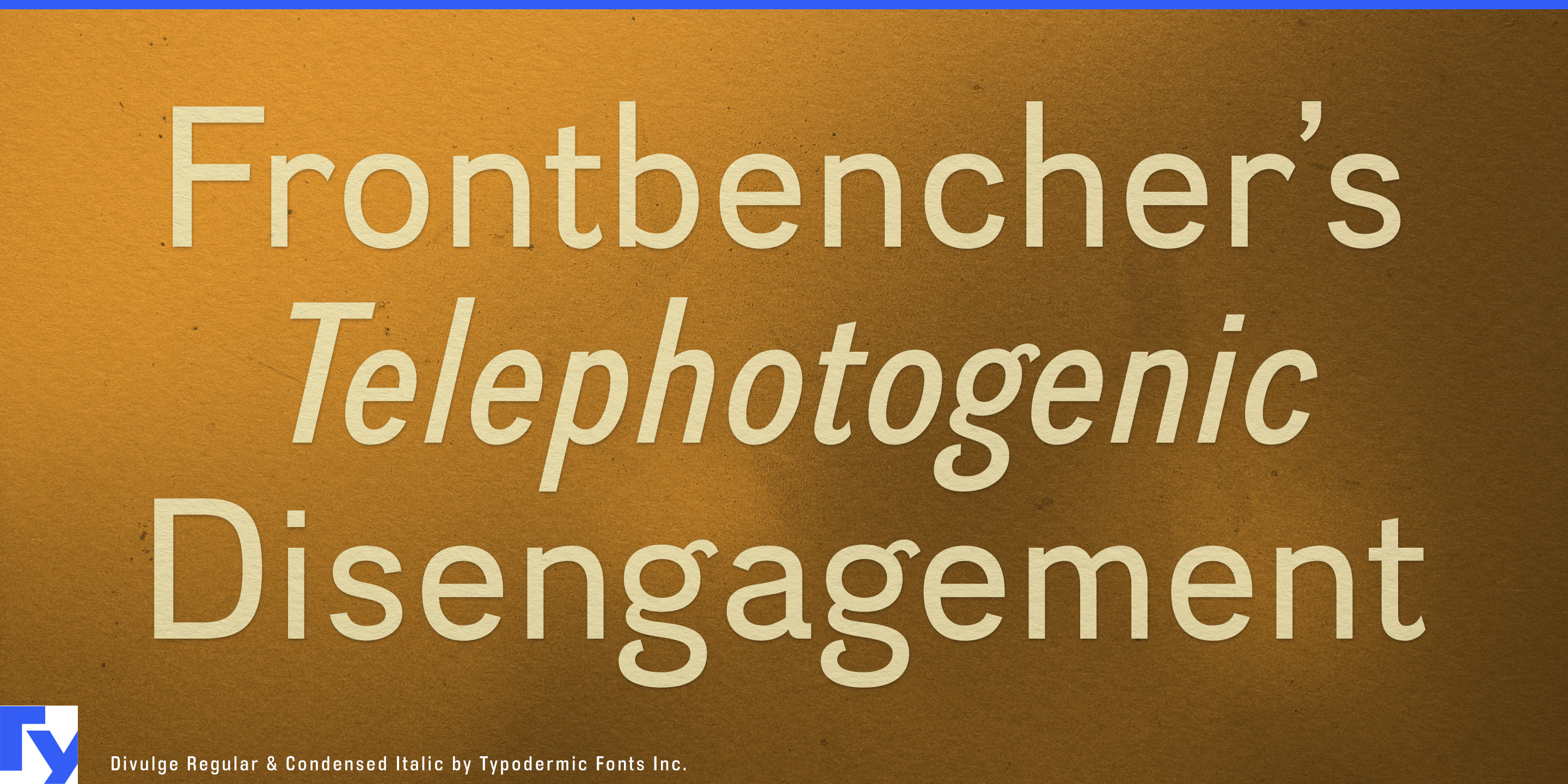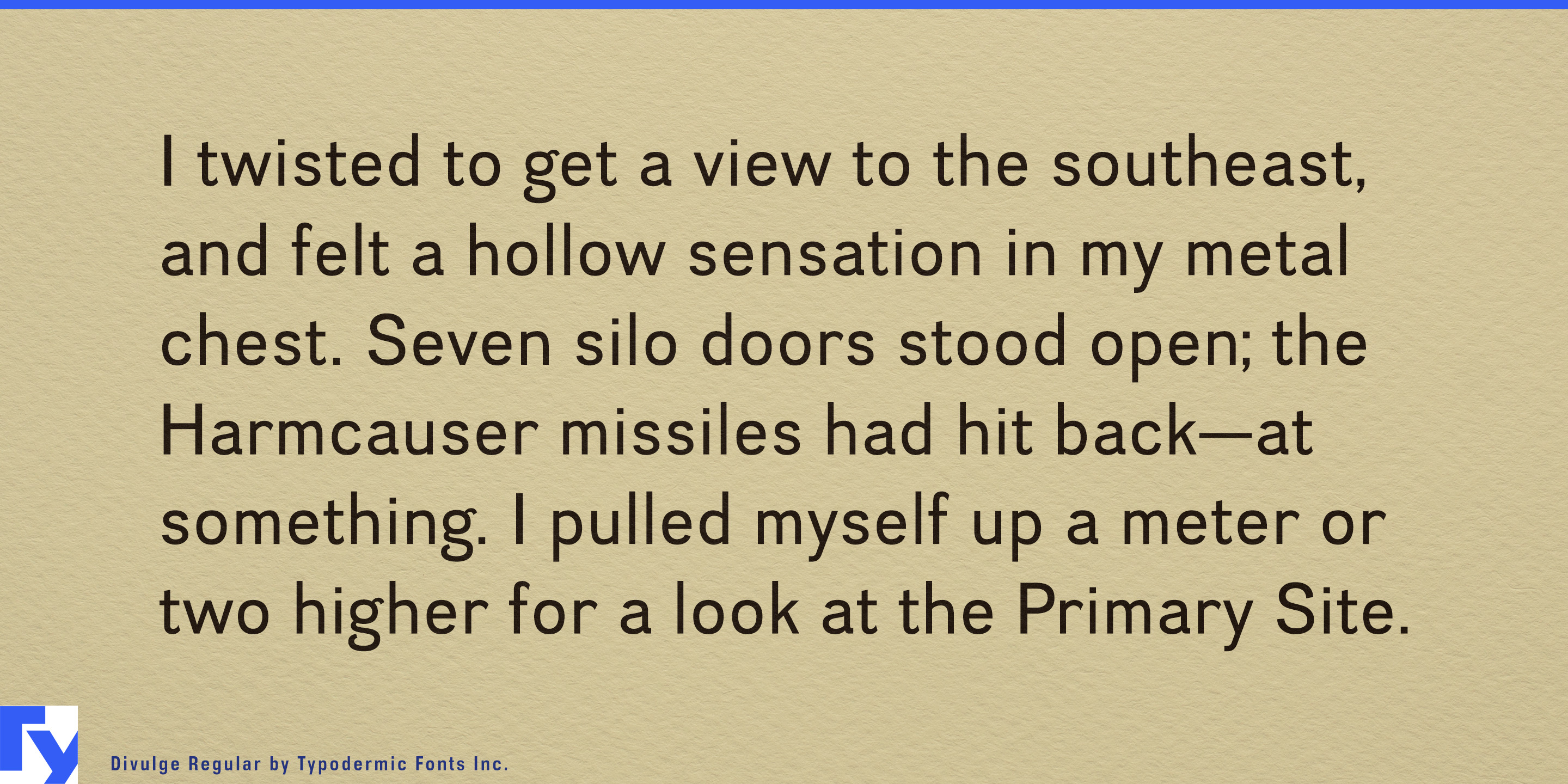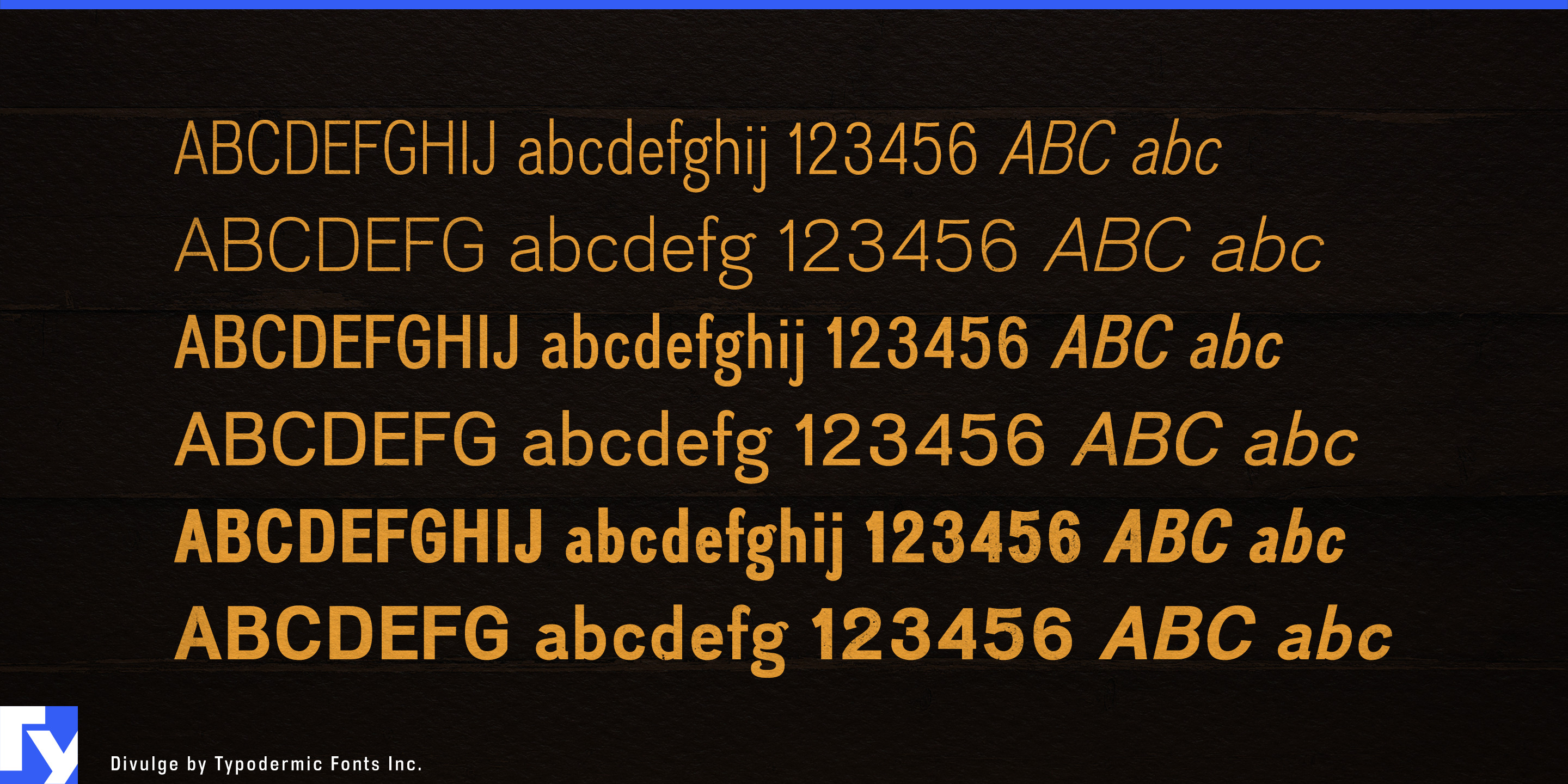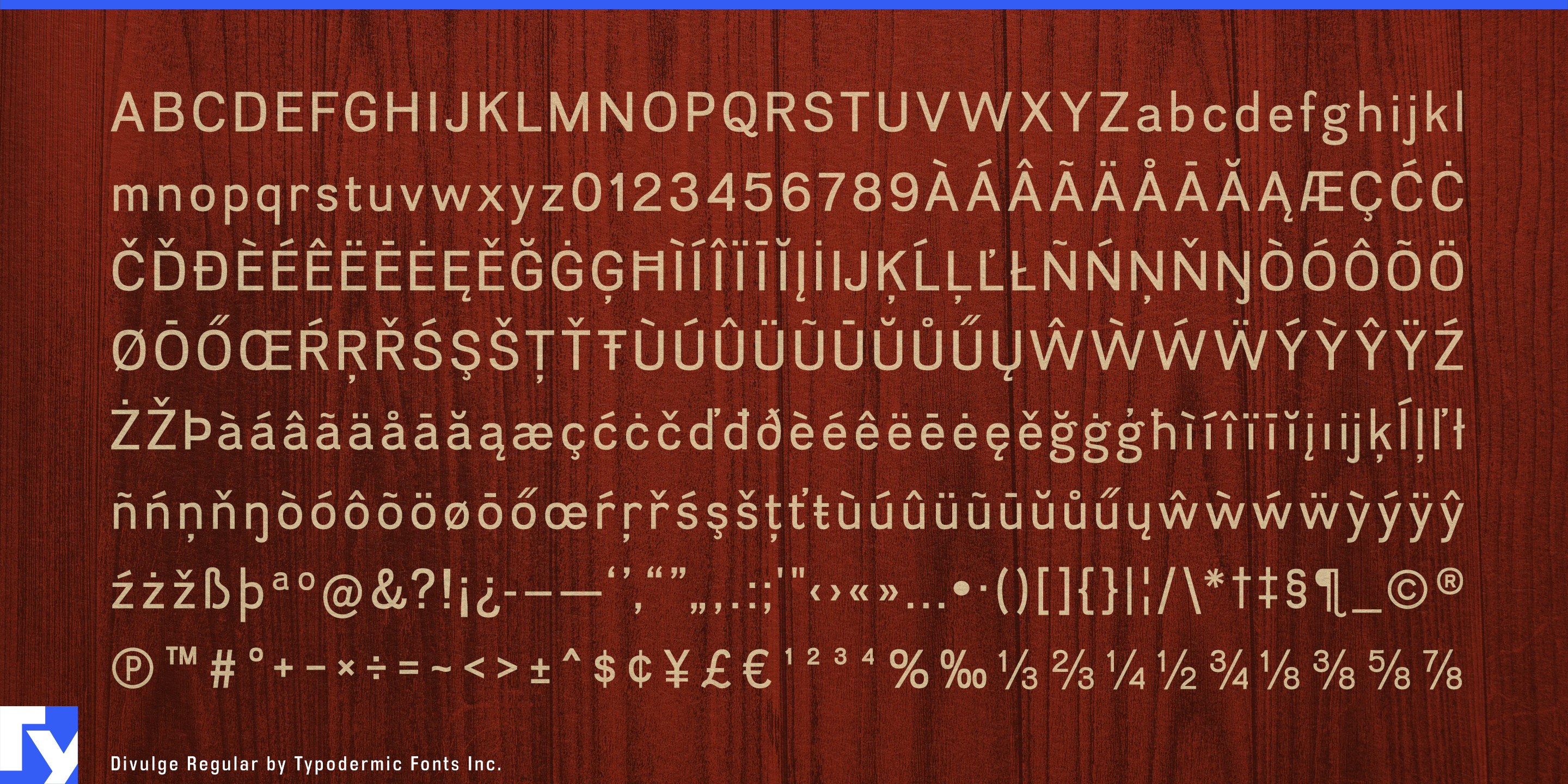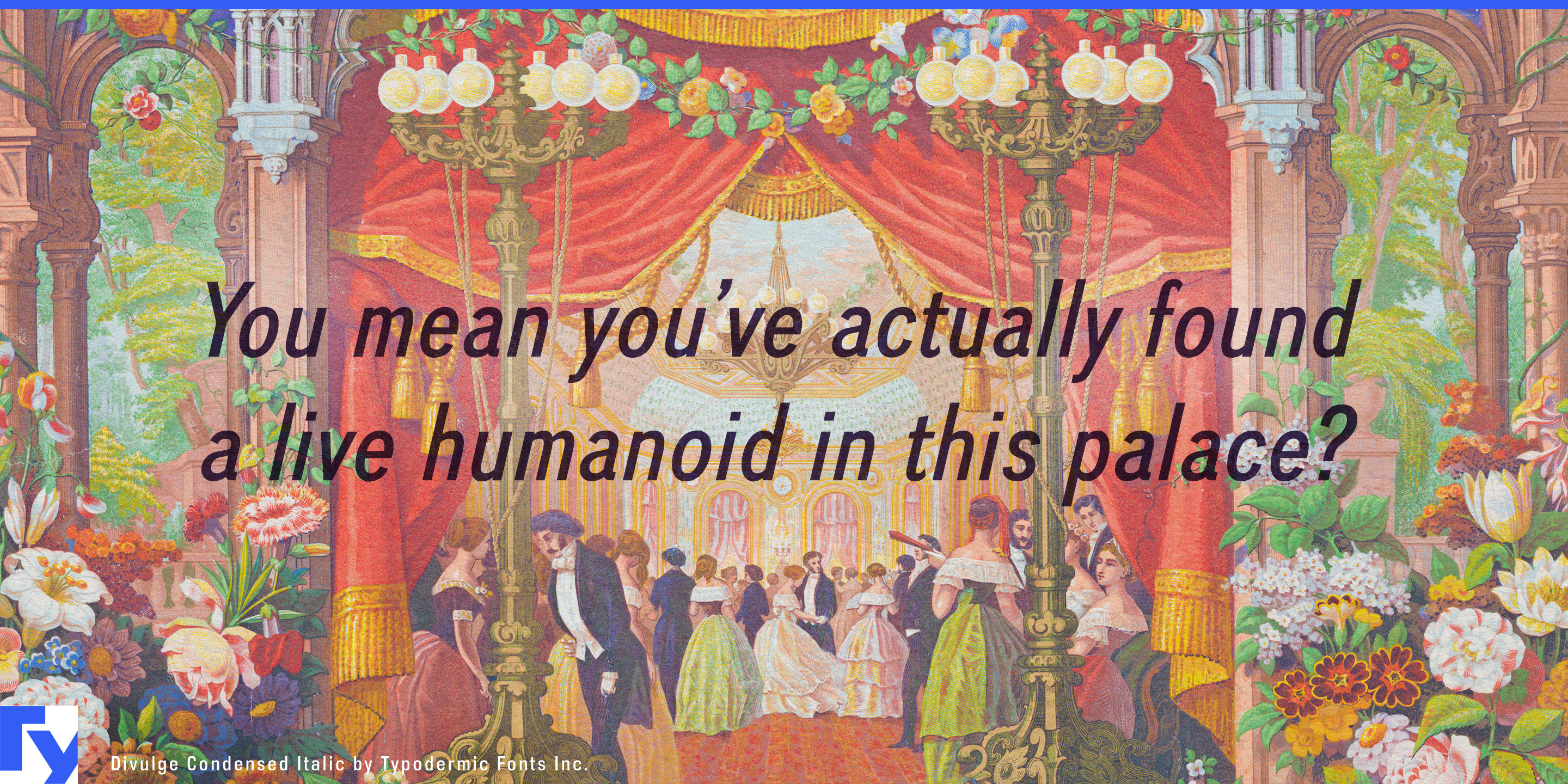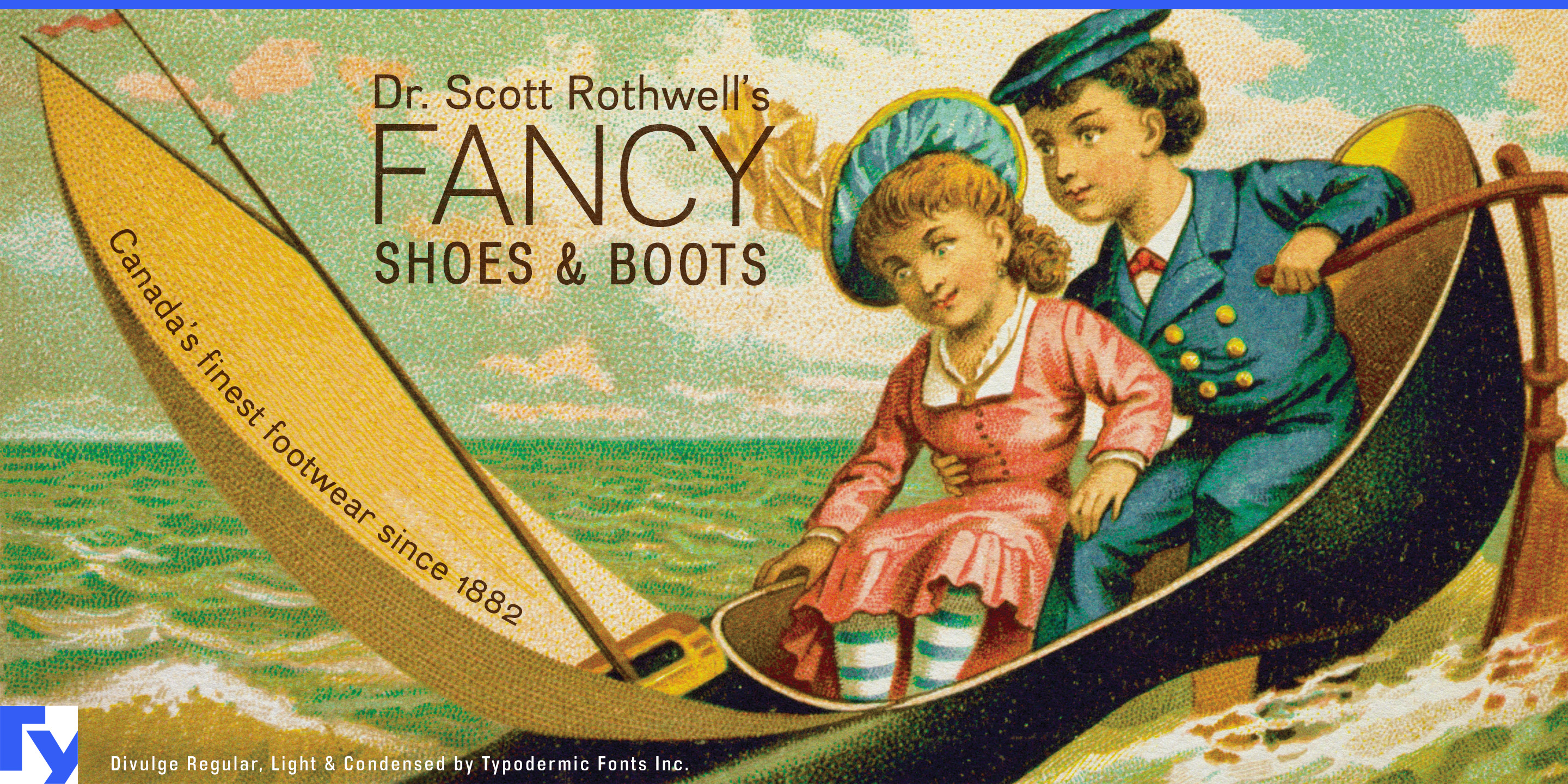
Divulge
Divulge takes its cues from the period before grotesque sans-serifs settled into familiar twentieth-century conventions. Early examples could be oddly proportioned, soft in unexpected places, and less systematic than the later models that came to define the genre. Divulge borrows some of that uncertainty without reproducing a particular historical typeface; it is a contemporary design that happens to be very comfortable around old-fashioned typography.
That makes it especially useful when an elaborate display face is already doing the attention-grabbing. A whiskey label, tea tin, bottle of bitters, aromatherapy oil, botanical extract, preserve jar, or confectionery package may have room for a decorative Victorian, Tuscan, engraved, or ornamental headline, but considerably less room for everything underneath it. Divulge provides a compact sans-serif layer for origins, dates, varieties, ingredients, batch information, tasting notes, and other details that need to remain part of the same visual world without competing with the headliner.
Its condensed proportions matter here. Genuine nineteenth-century grotesques were not necessarily economical with horizontal space, particularly outside headline styles. Divulge keeps some of their irregularity and period compatibility while making that language easier to fit into contemporary packaging. The result can feel historically sympathetic without becoming a reproduction exercise.
The same hierarchy works for apothecary-inspired cosmetics, soaps, grooming products, essential oils, candles, and botanical goods. Decorative lettering can establish the brand while Divulge handles subheads, classifications, locations, short instructions, captions, and product descriptions. It is often most useful when it is not the loudest thing on the package.
Museums, archives, historical publishing, and cultural exhibitions offer another natural setting. Old photographs, maps, newspaper clippings, advertisements, and period display lettering still need contemporary captions, timelines, section headings, and explanatory material around them. A neutral modern grotesque can feel detached from the source material, while a literal historical imitation can make the whole project feel staged. Divulge occupies the useful space between them.
It can also take the leading role for historical nonfiction covers, exhibition titles, heritage programs, menus, and institutional graphics where something restrained is preferable to an ornate period face. Its slightly unfamiliar proportions suggest an earlier grotesque tradition without pretending to come from a specific year or printing shop.
Divulge is less a historical typeface than a contemporary accomplice to history. Its strongest trick may be knowing when to stay compact and let the fancy typeface have the headline; then it can get on with divulging the details.